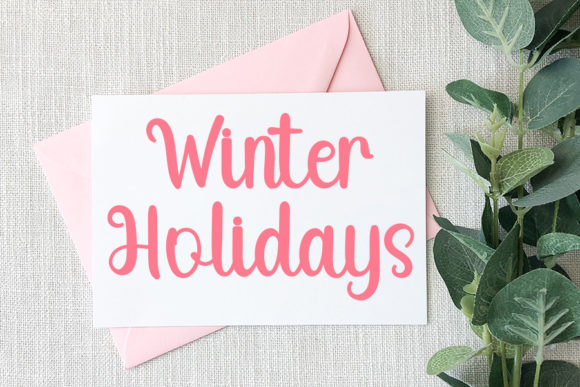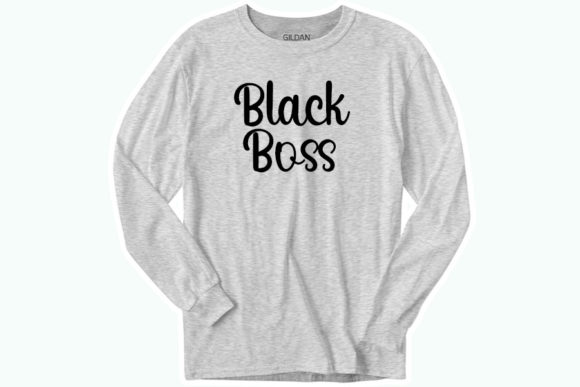
Vacation Font
db-ku.com - Script & Handwritten -- Vacation is an enchanting handwritten font. This versatile script font has a wide spectrum of applications ranging from greeting cards to headlines and is guaranteed to add a romantic feel to your next project.